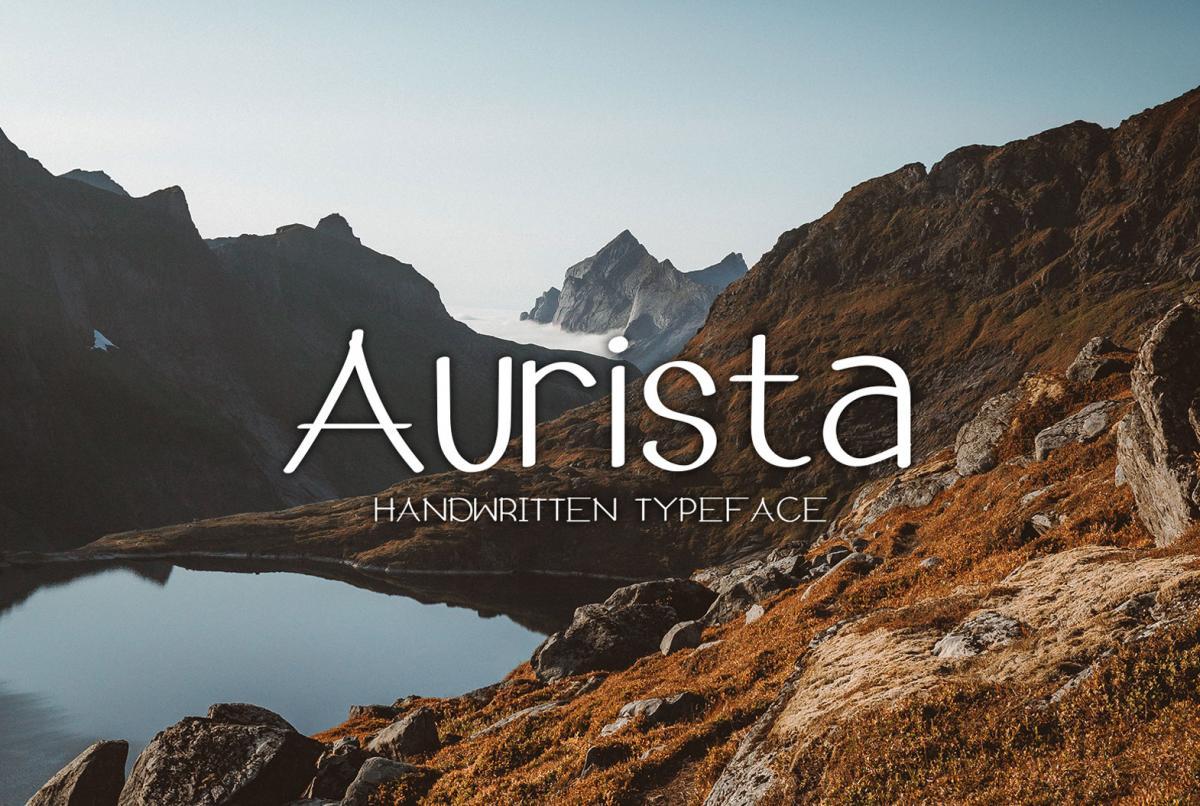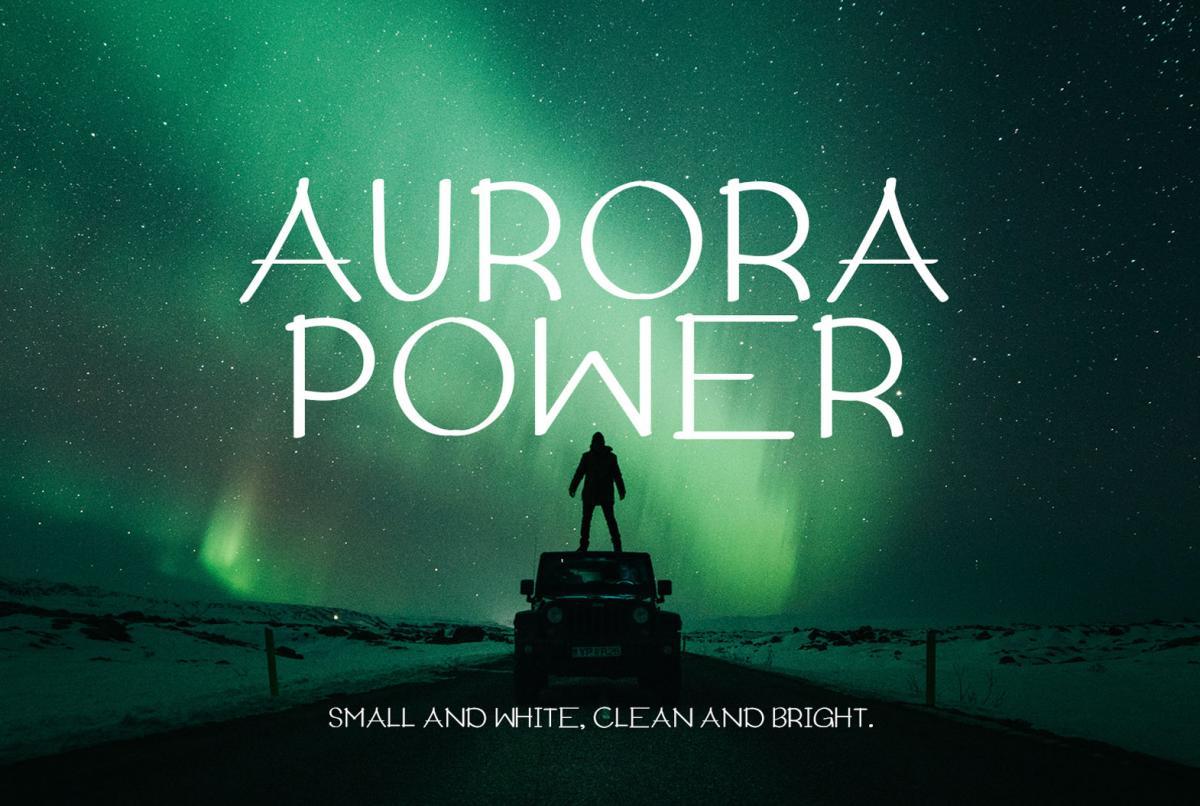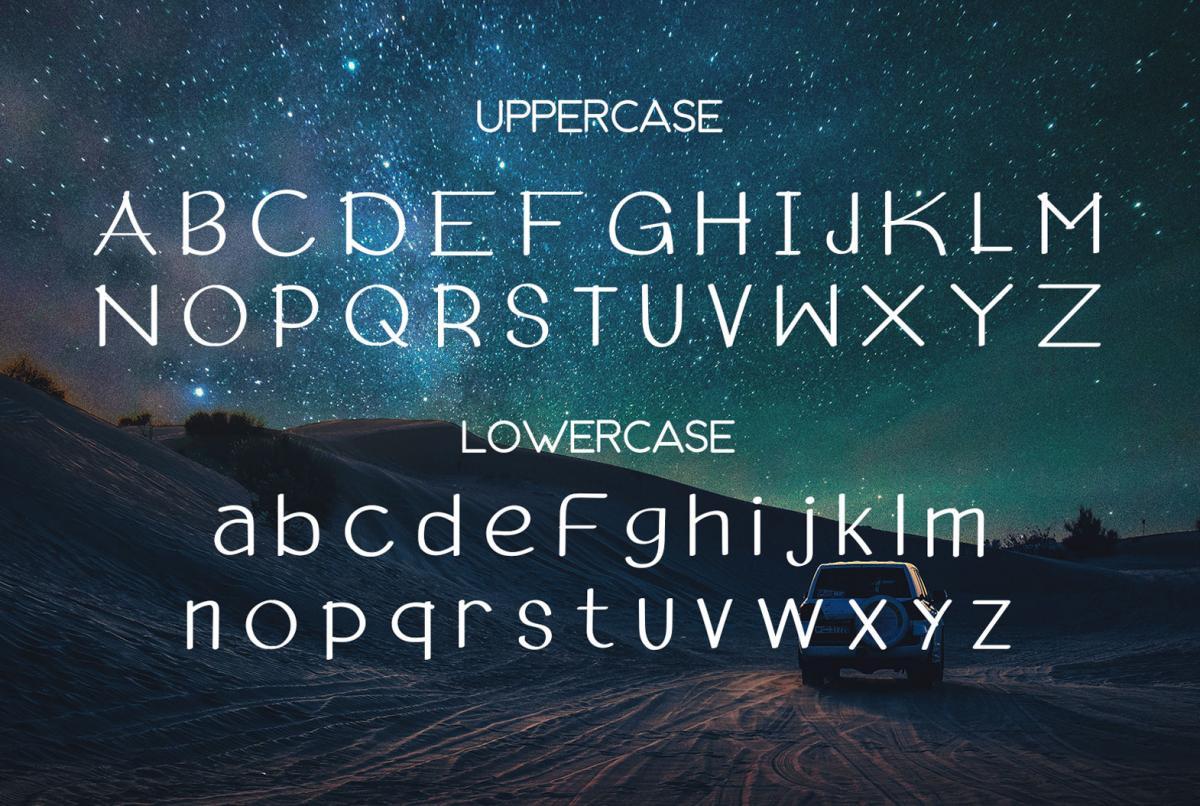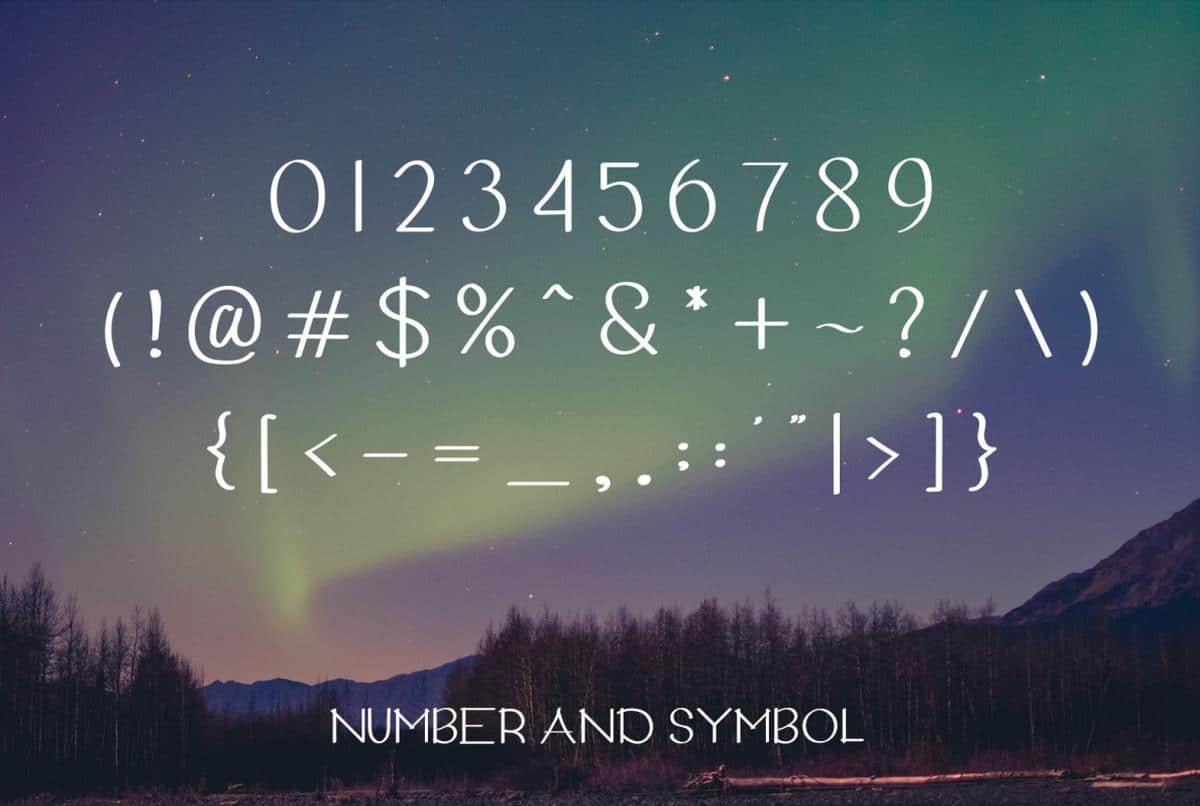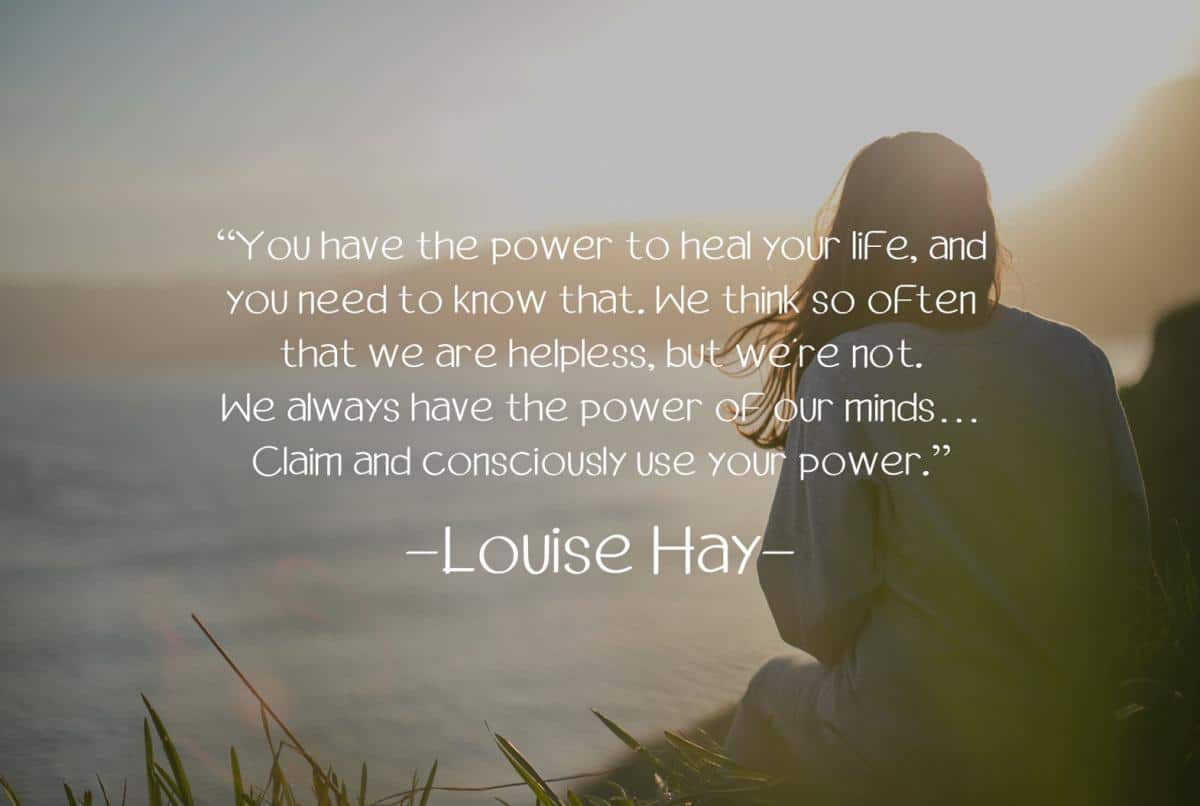
Aurista Handwritten Sans Font
Aurista is a casual and tasteful display font. Clean and a little bit quirky, this font is the perfect fit for all of your logos, branding, social media, and crafty DIY projects.